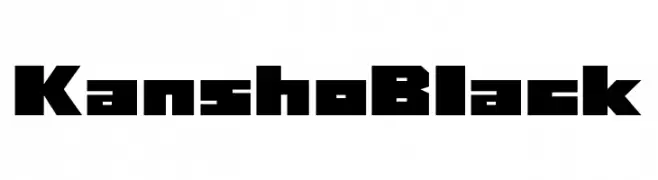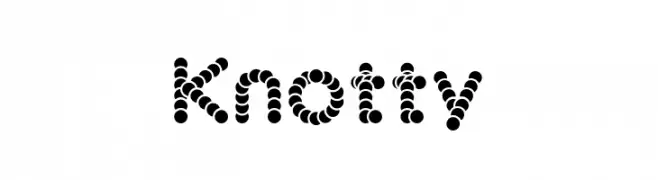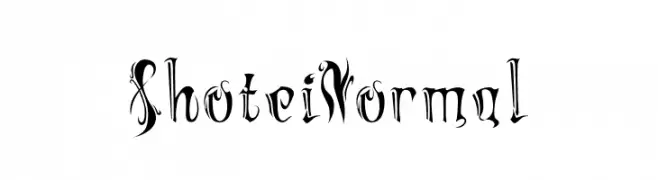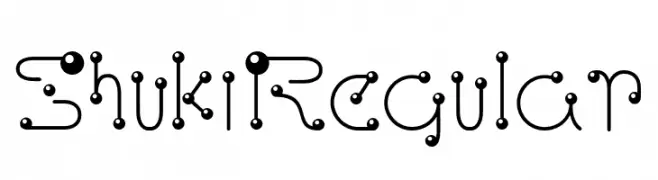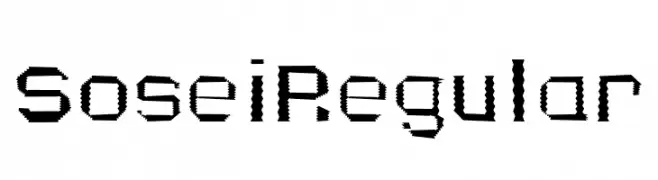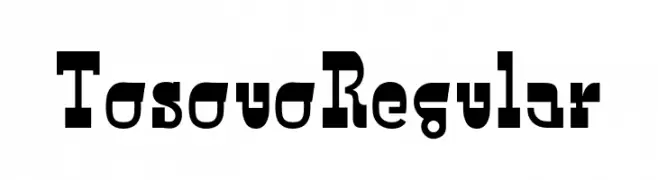
A modern, artistic font with slender, elongated characters and a sophisticated style.
A bold, geometric font with strong, angular lines and a blocky appearance.
A decorative and artistic font with swirling, brush-like strokes.
A playful and decorative font with circular dots at stroke ends.
An ornate and decorative font with intricate flourishes and a calligraphic style.
A bold, geometric font with angular shapes and modern flair.
A bold, modern font with geometric shapes and sharp edges.
A playful, knot-like decorative font with interconnected loops.
A bold, textured font with a digital glitch effect and angular design.
An ornate and decorative font with swirling embellishments and artistic flair.